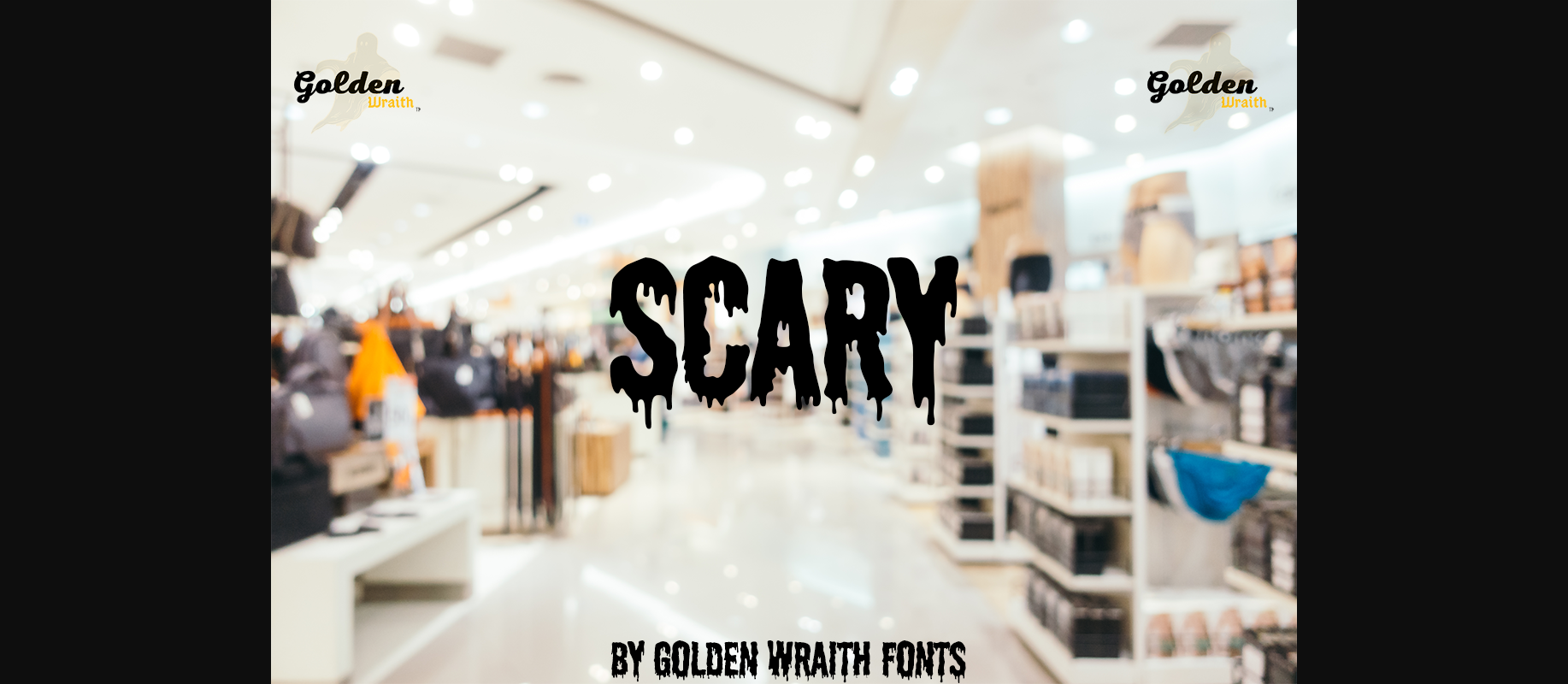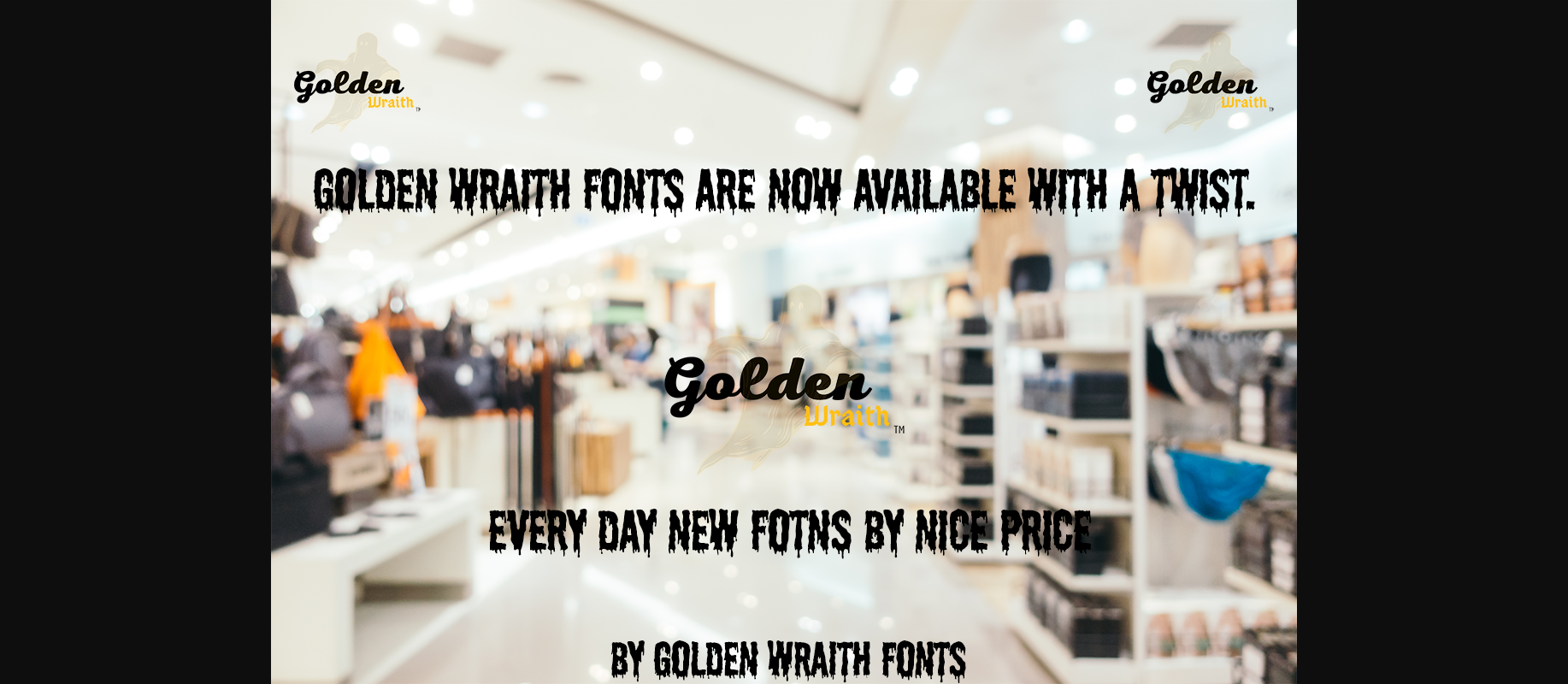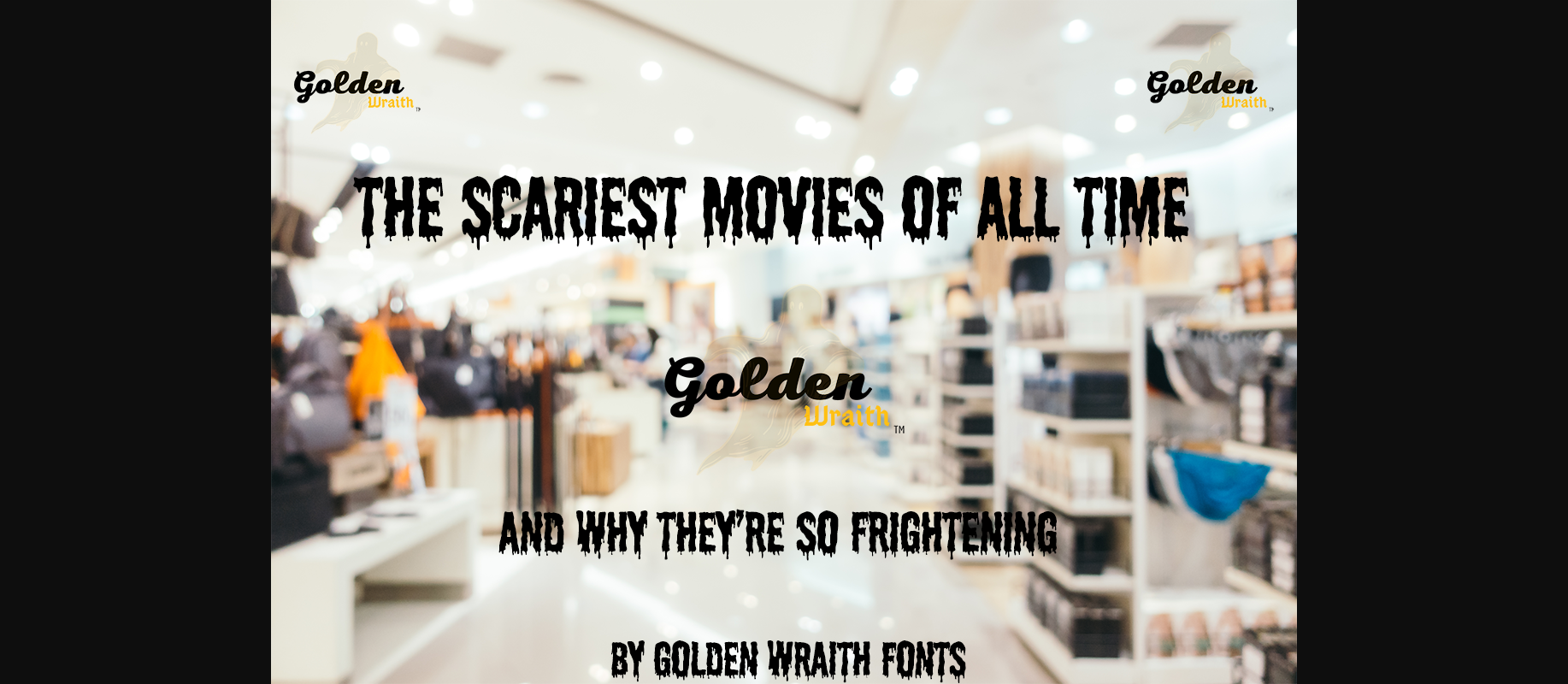
Scary is a creepy and cool decorative font. Add it to your Halloween crafts, horror movie posters, t-shirts and anything else that requires a spectacular look.